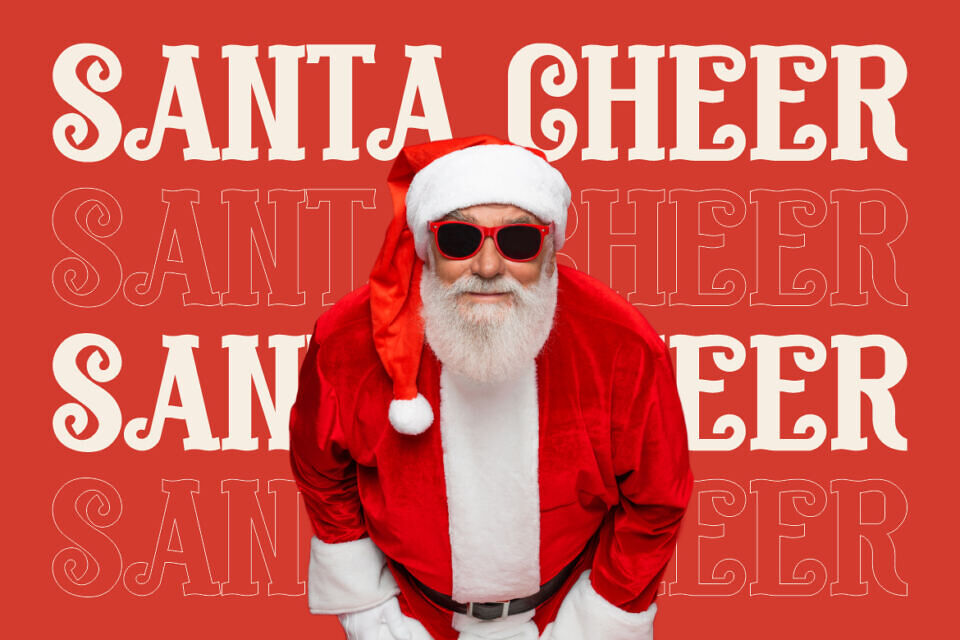
Santa Miracle Font
Santa Miracle is a Christmas Display Font built with bold proportions, confident weight, and balanced letter height that feels joyful and welcoming. Each character carries thick strokes with soft curves and playful terminals, creating a friendly rhythm that feels classic yet lively.
This festive font is perfect for holiday designs that need to grab attention and evoke emotions. It’s ideal for Christmas branding, packaging, posters, and advertising headlines. The bold style conveys clear messages, while its friendly tone suits greeting cards, gifts, and seasonal editorials.